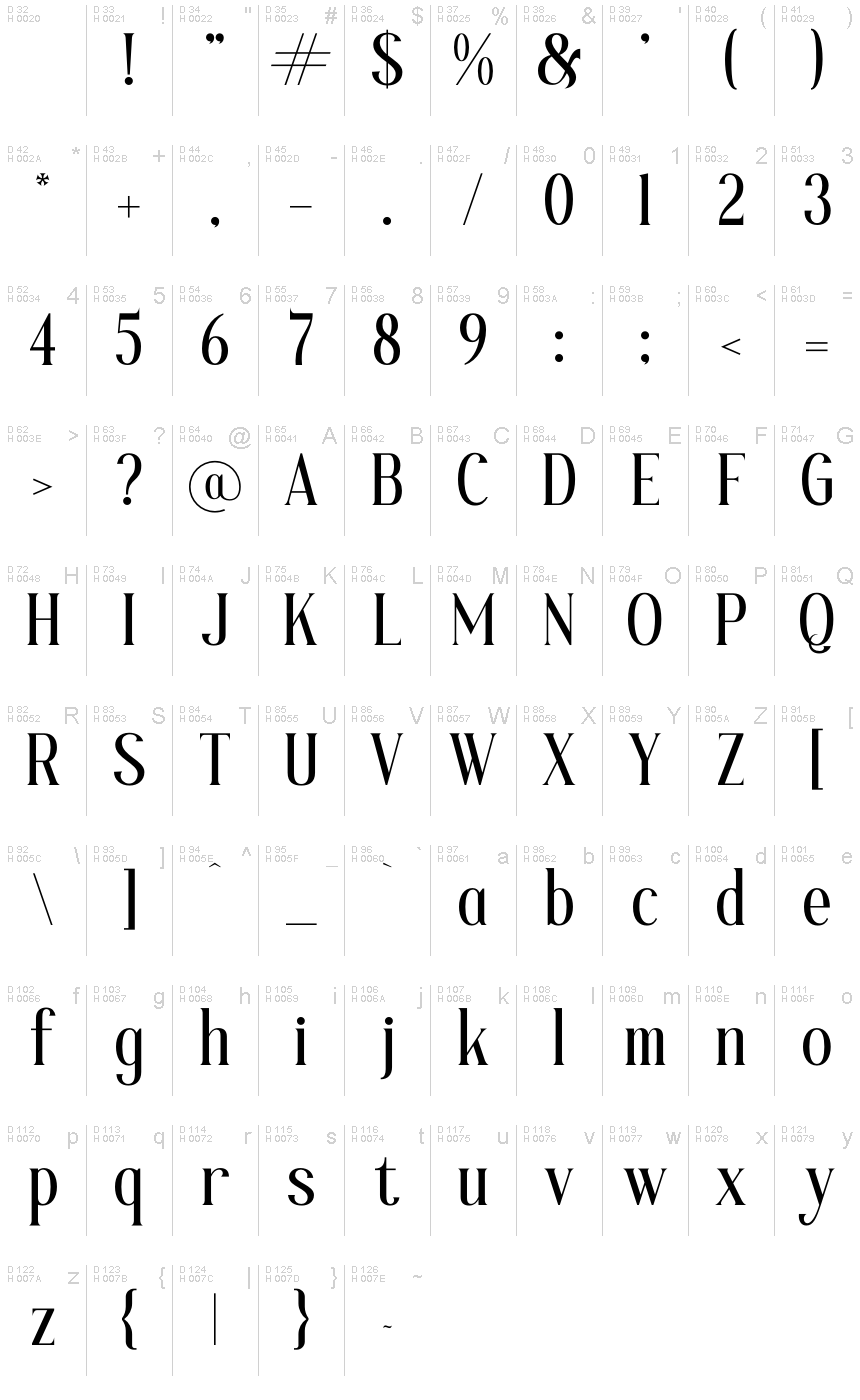
Blafhy Glibs
Blafhy Glibs font by Storytype Studio is a striking serif with a contemporary flair. Its condensed width gives it an elegant and sleek appearance, ideal for creating a sophisticated and modern aesthetic. The font's refined serifs add a touch of classic charm while maintaining a clean look, perfect for various design contexts.
Whether you're crafting compelling headlines, designing luxurious branding materials, or developing stylish editorial layouts, Blafhy Glibs offers versatility and style. This free font makes it accessible for both professional projects and personal use. Download Blafhy Glibs to elevate your design work with its unique blend of traditional elegance and modern appeal.